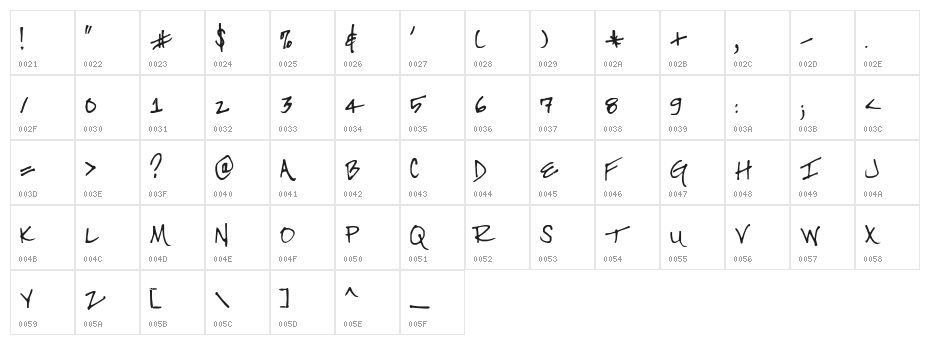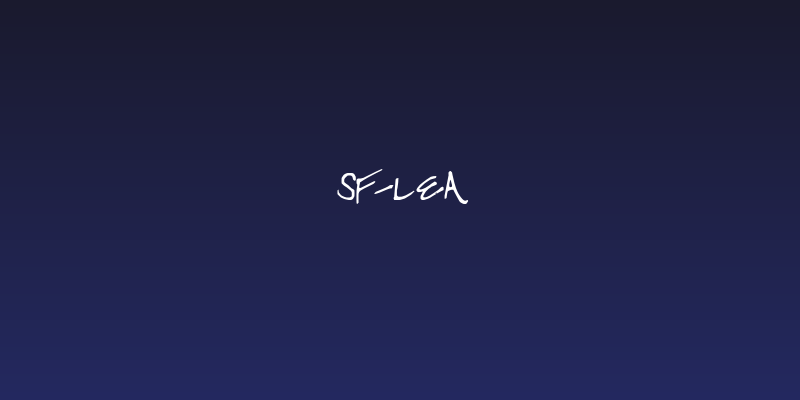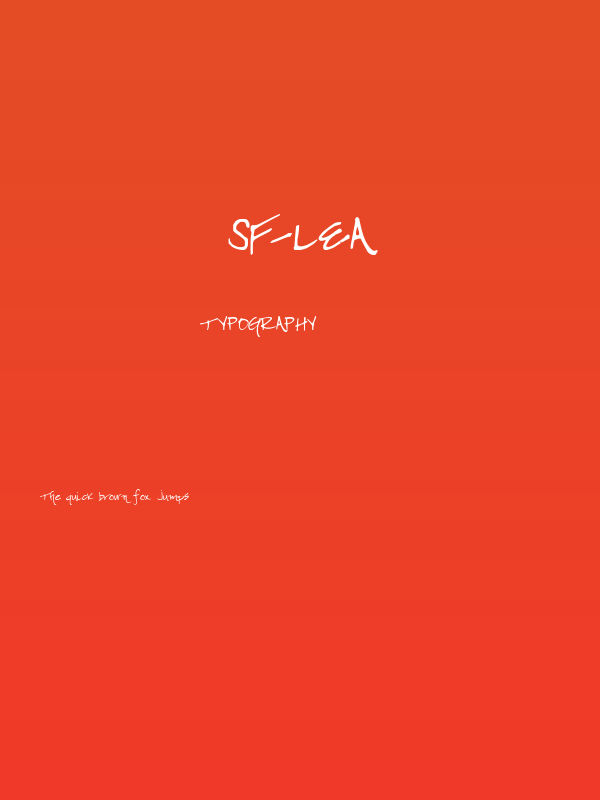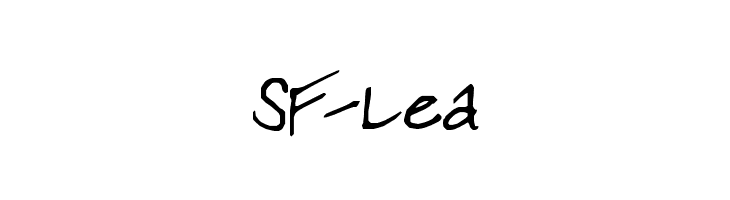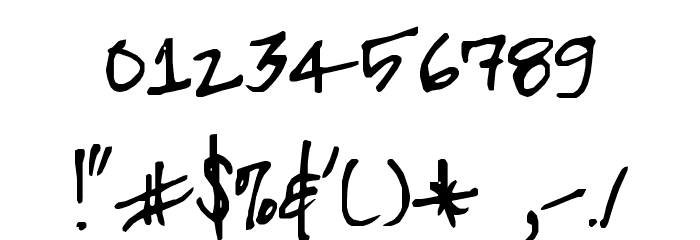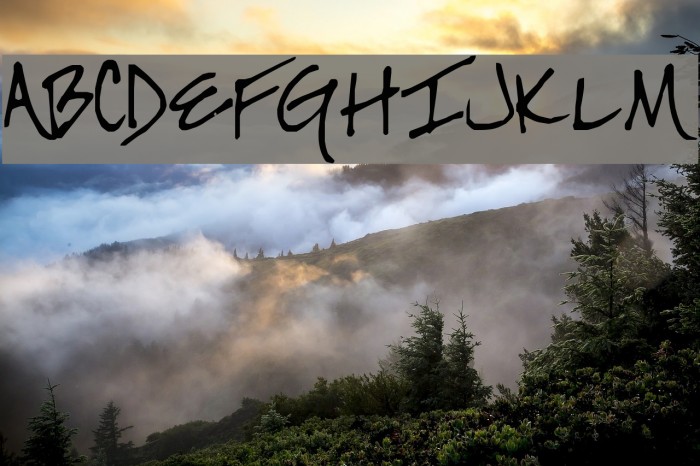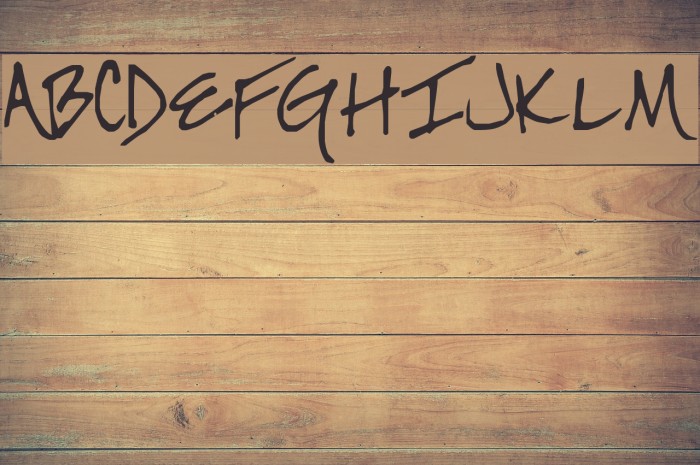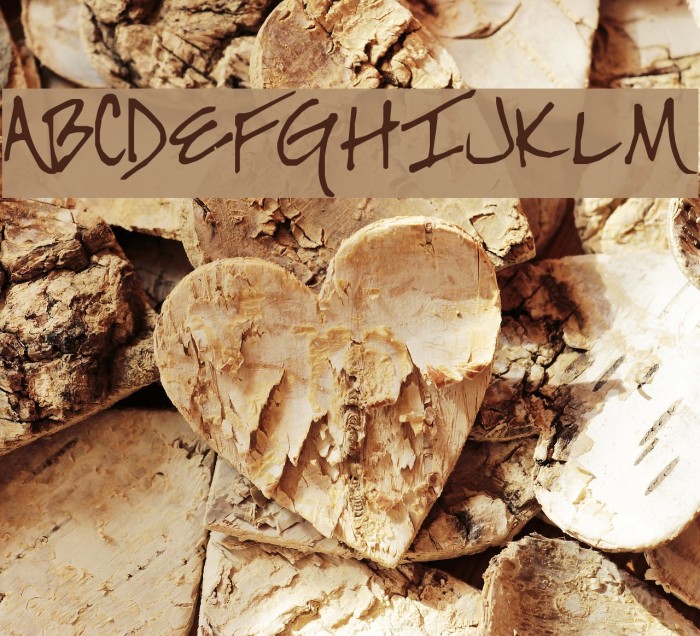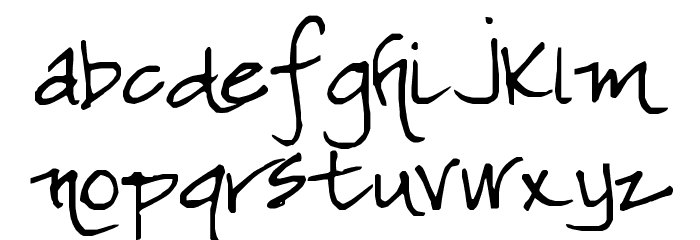
SF-Lea Font
SF-Lea Description
This font exudes a casual and handwritten style, characterized by its fluid and dynamic strokes. The letters are slightly slanted, giving it a natural and informal appearance. The uppercase and lowercase letters maintain a consistent flow, while the numbers and special characters blend seamlessly into the overall design. The strokes vary in thickness, adding a touch of spontaneity and energy. This font is perfect for projects that require a personal touch, such as invitations, greeting cards, or creative branding. Its playful yet legible nature makes it versatile for various design needs.
| Overall Style | Casual, Informal |
| Use Case | Headlines, Creative projects, Personal notes |
| Proposed Projects | Ideal for invitations, greeting cards, creative branding, and personal projects. |